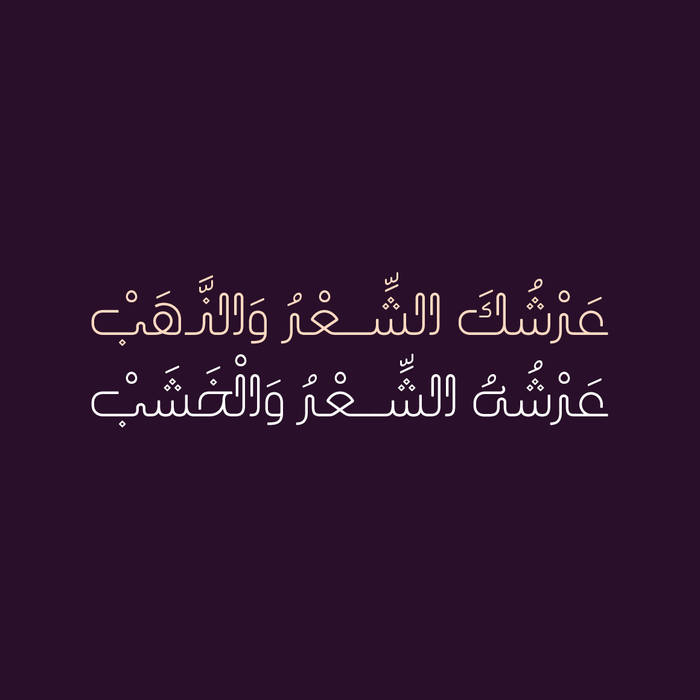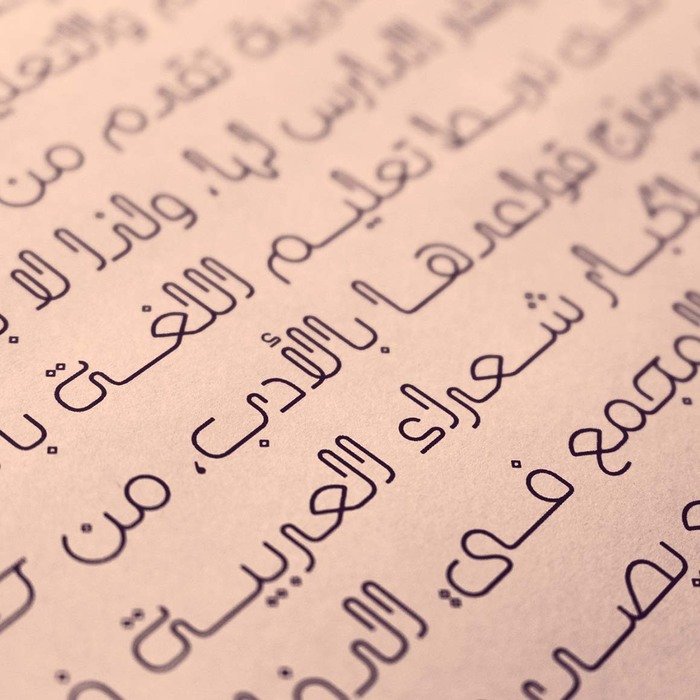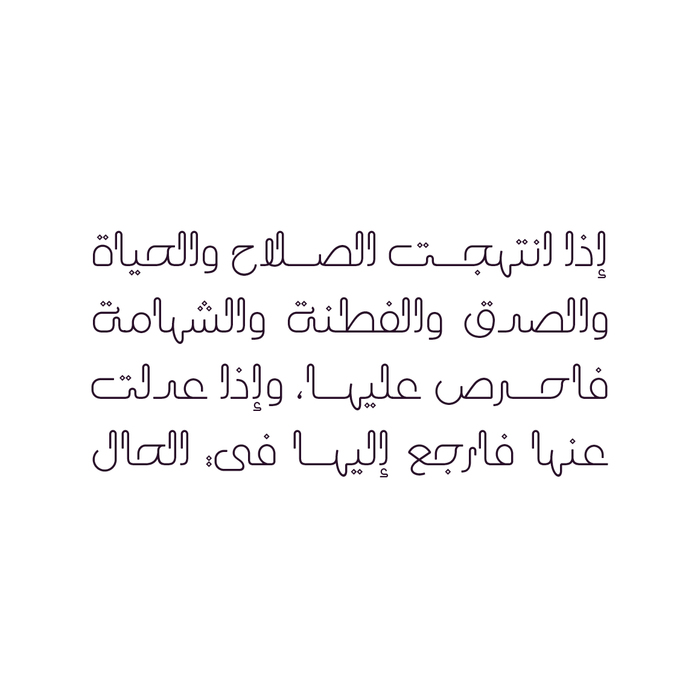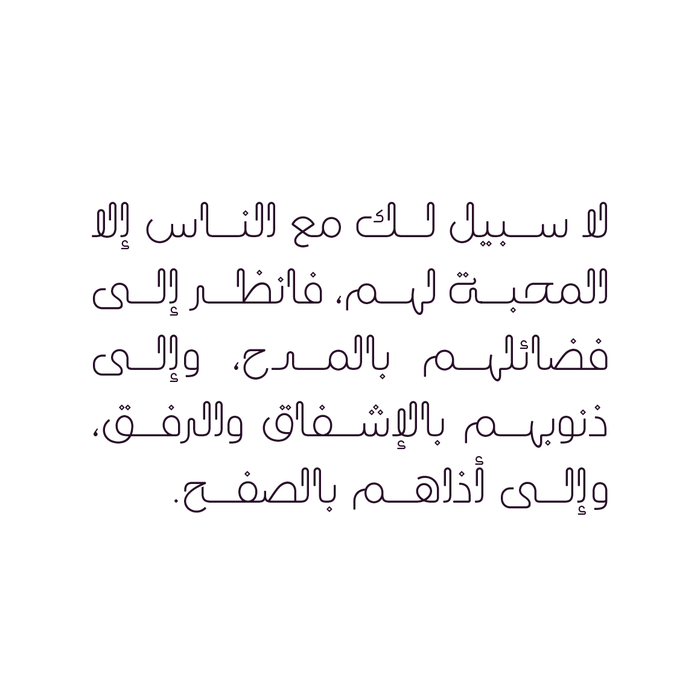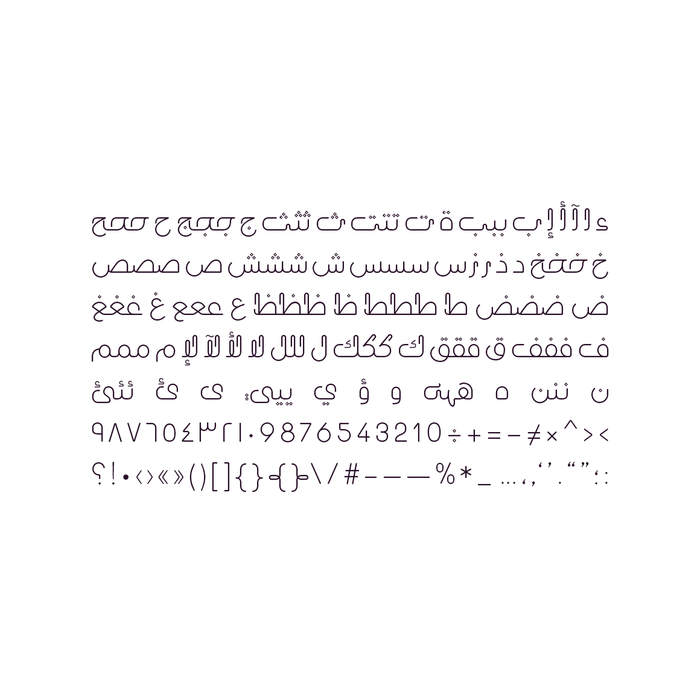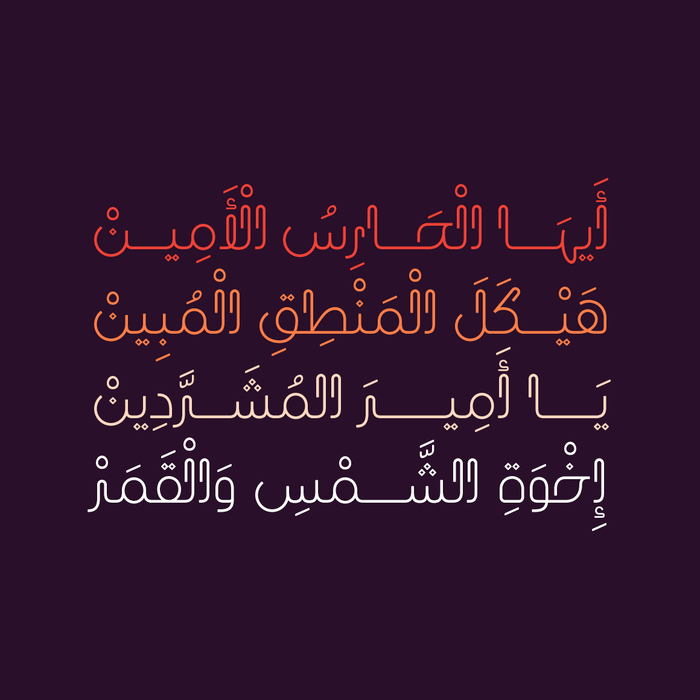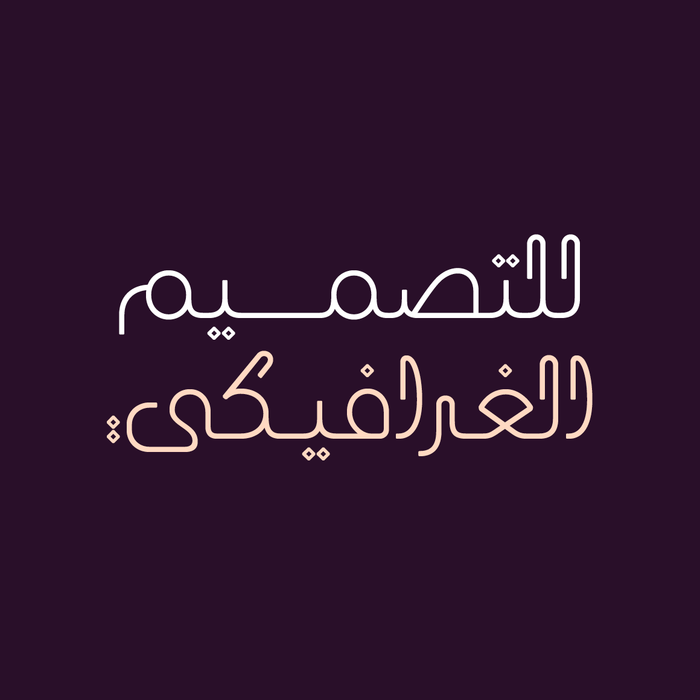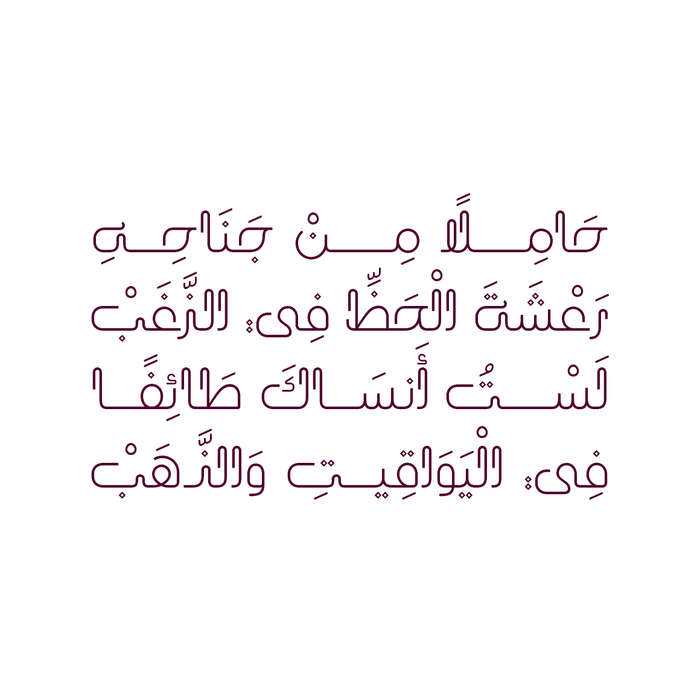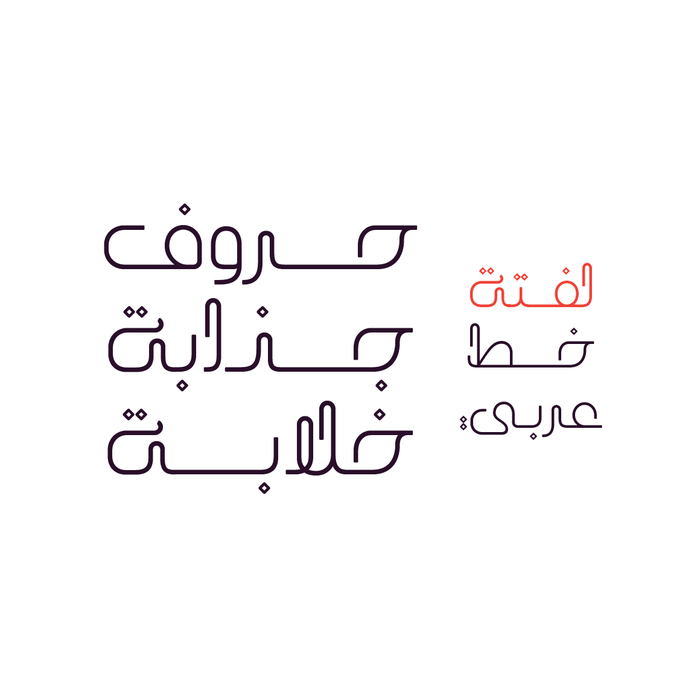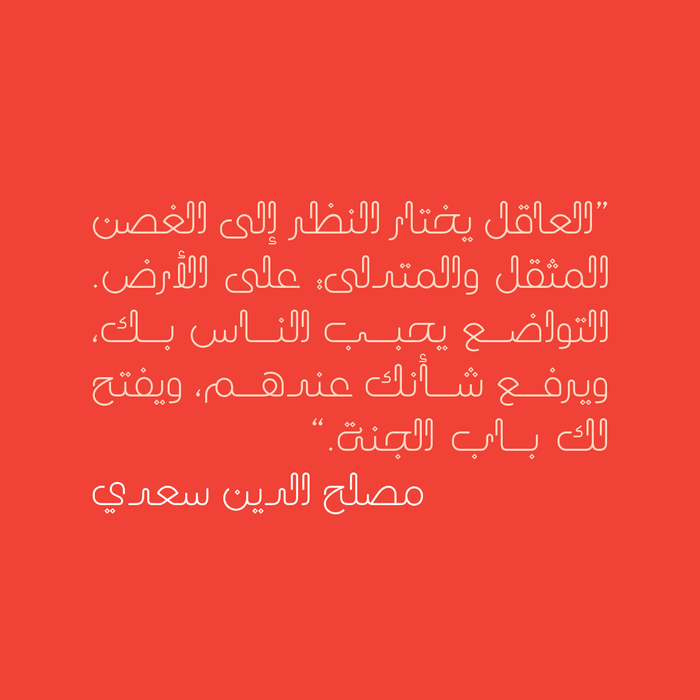
Laftah - Arabic Font
Laftah (which is the Arabic for Turn) is an Arabic display font that features unique thin stems fused with a modern look. Laftah is suitable for all contemporary design projects including web, advertising, print and mobile applications.